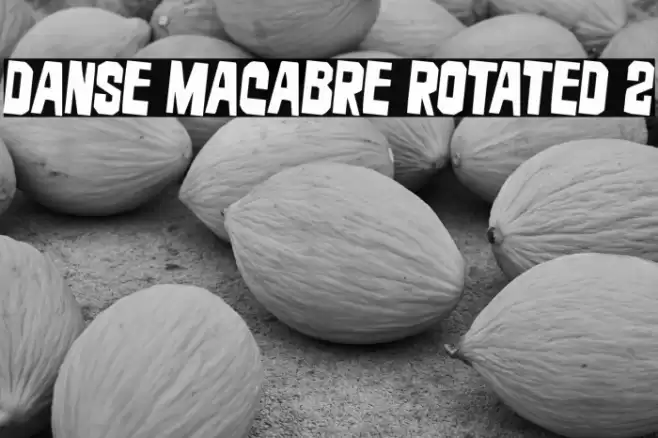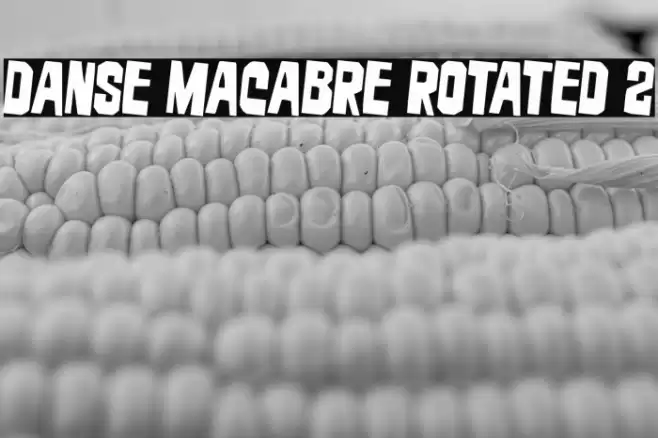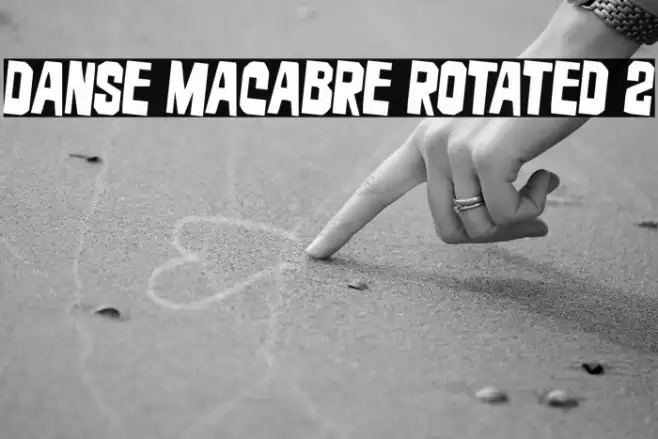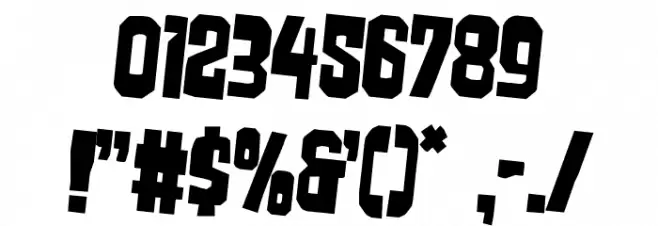
Danse Macabre Rotated 2 Font
Danse Macabre Rotated 2 Description
This font features a bold and dynamic design with a strong presence. The characters are angular and slightly slanted, giving a sense of movement and energy. The uppercase letters are prominent and commanding, while the numbers and special characters maintain the same bold style. The font's unique geometric shapes and sharp edges make it stand out, ideal for projects that require a striking visual impact. The overall style is modern and edgy, suitable for creative and unconventional designs.
A bold, angular font with a dynamic and modern style from Uncategorized fonts.
- Proposed Projects: Perfect for posters, album covers, video game graphics, and branding that requires a bold statement.
- Overall Style: Modern, Edgy